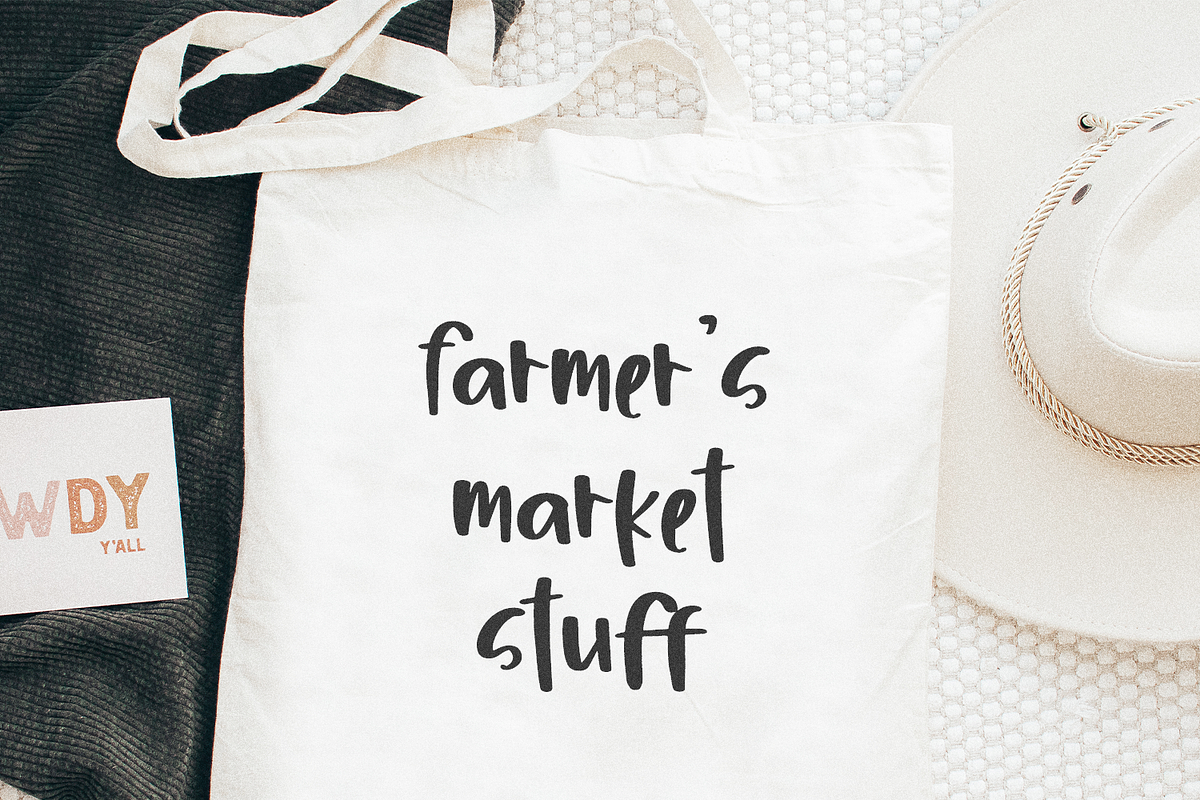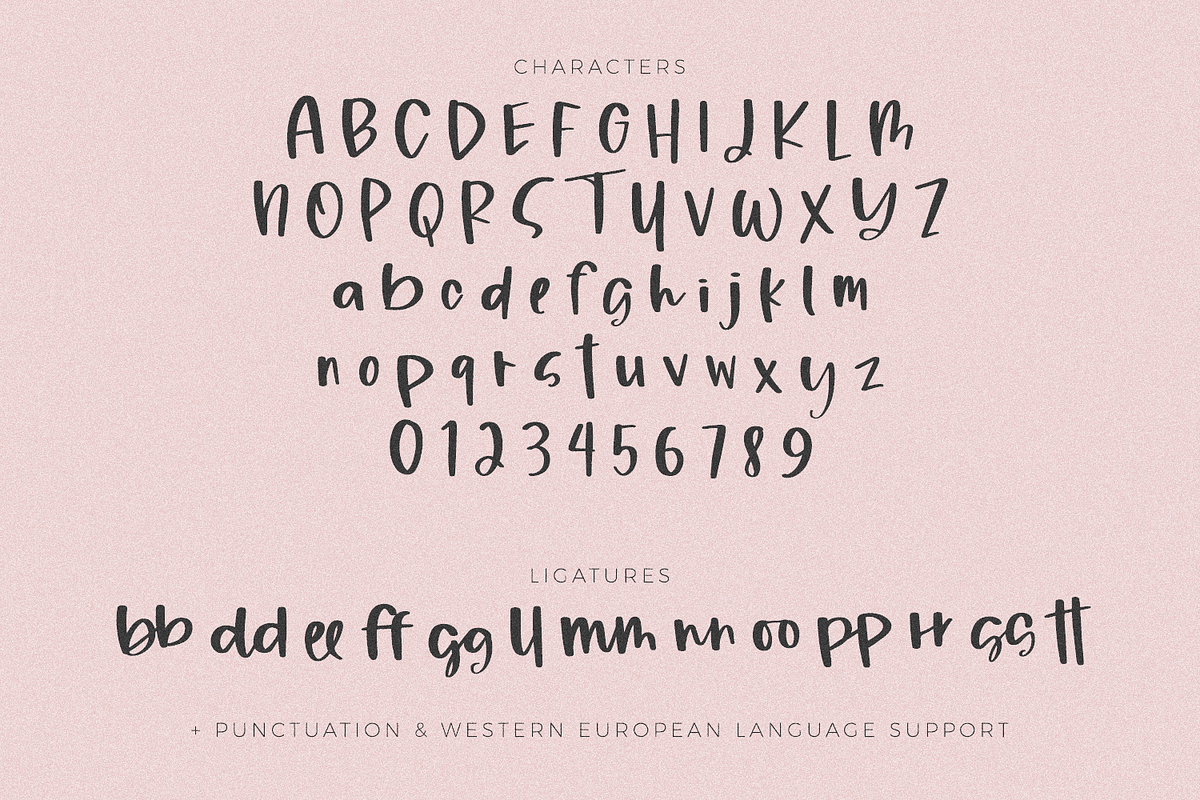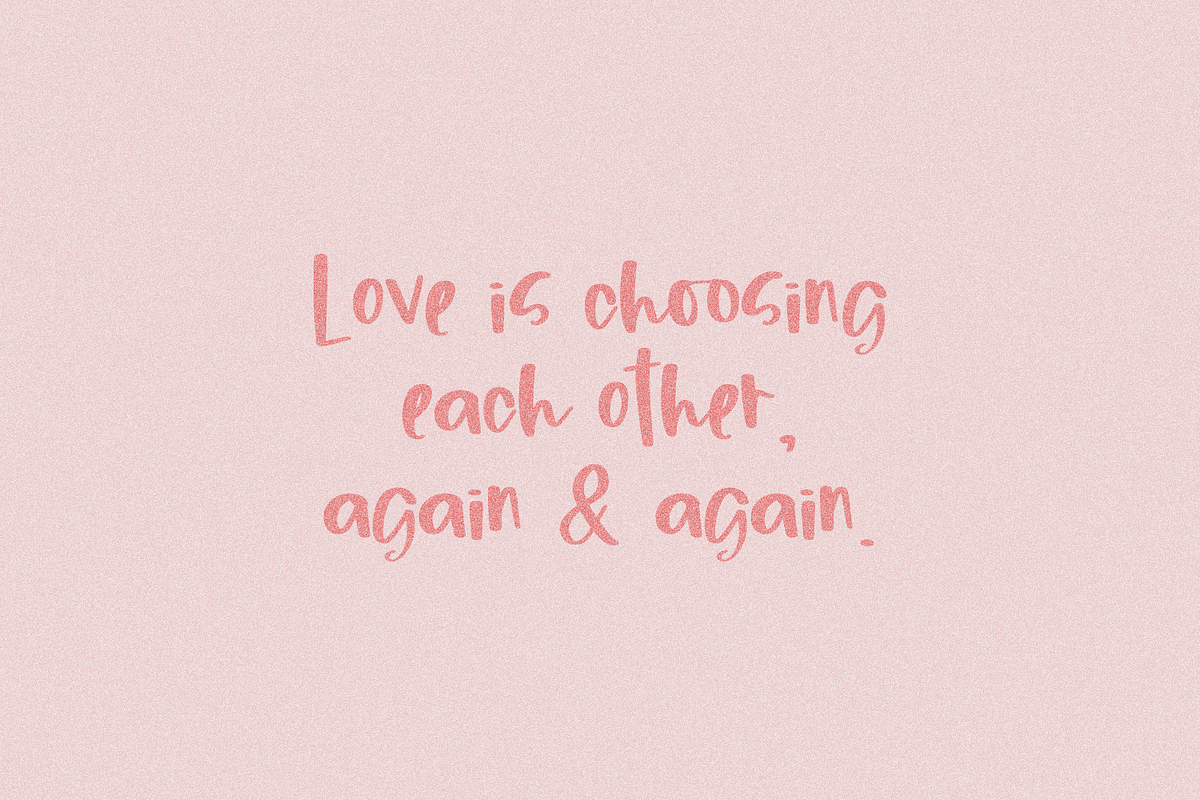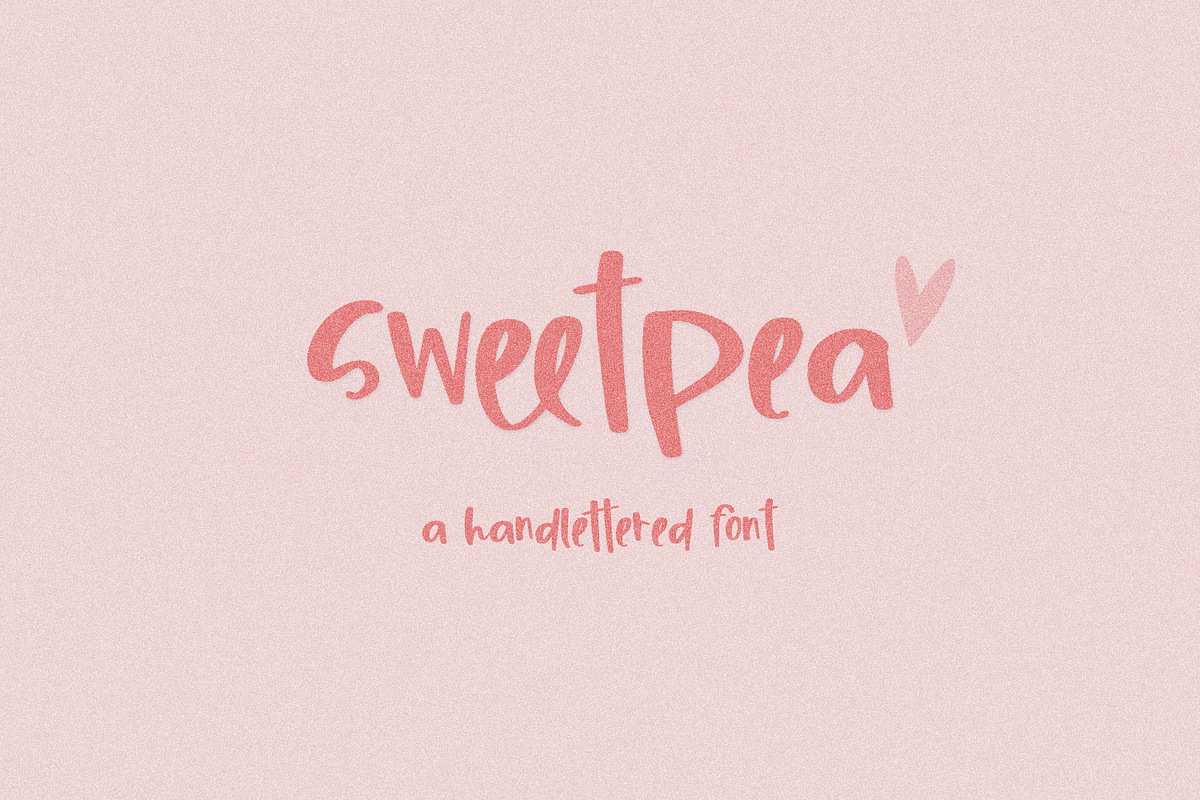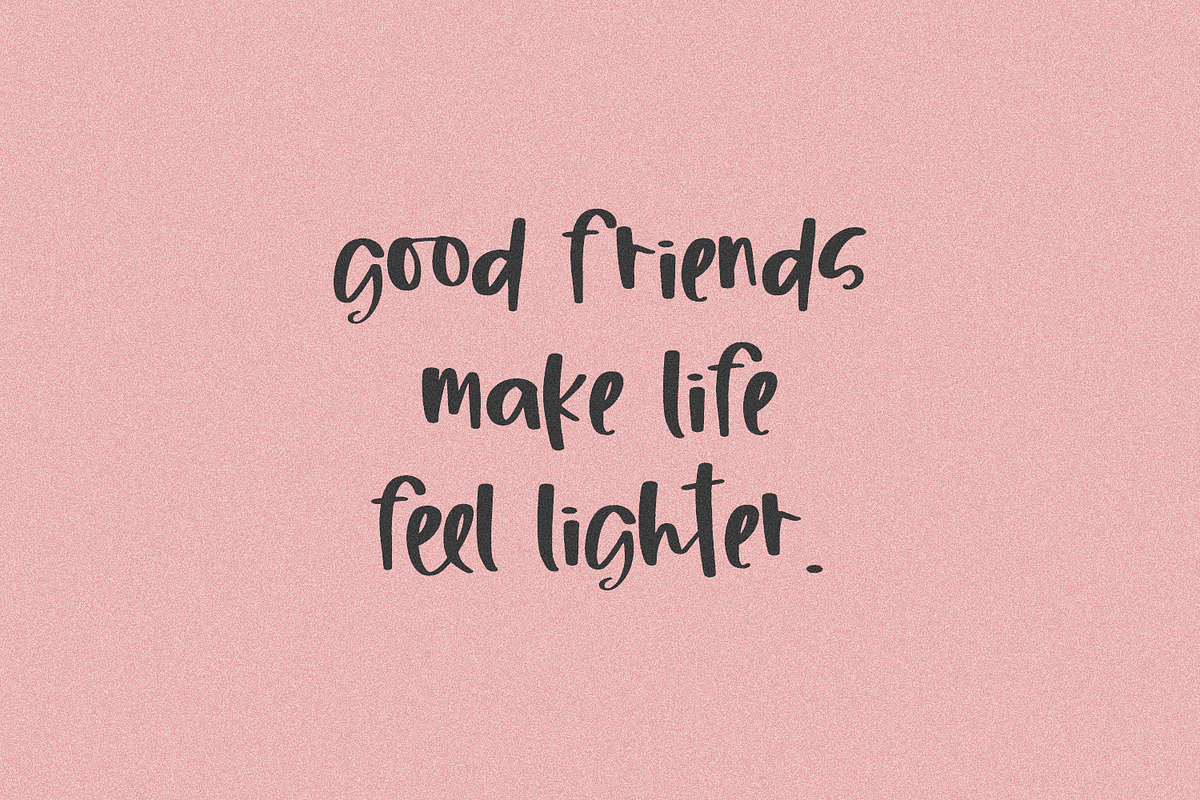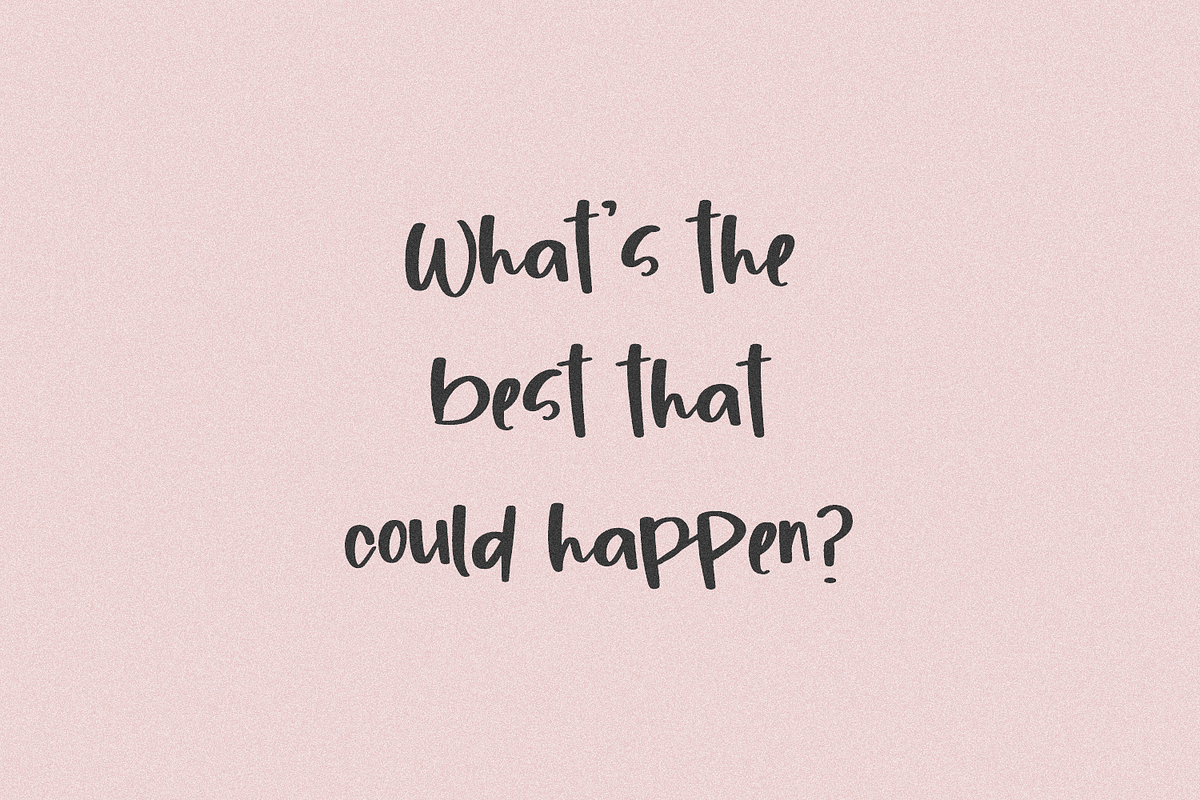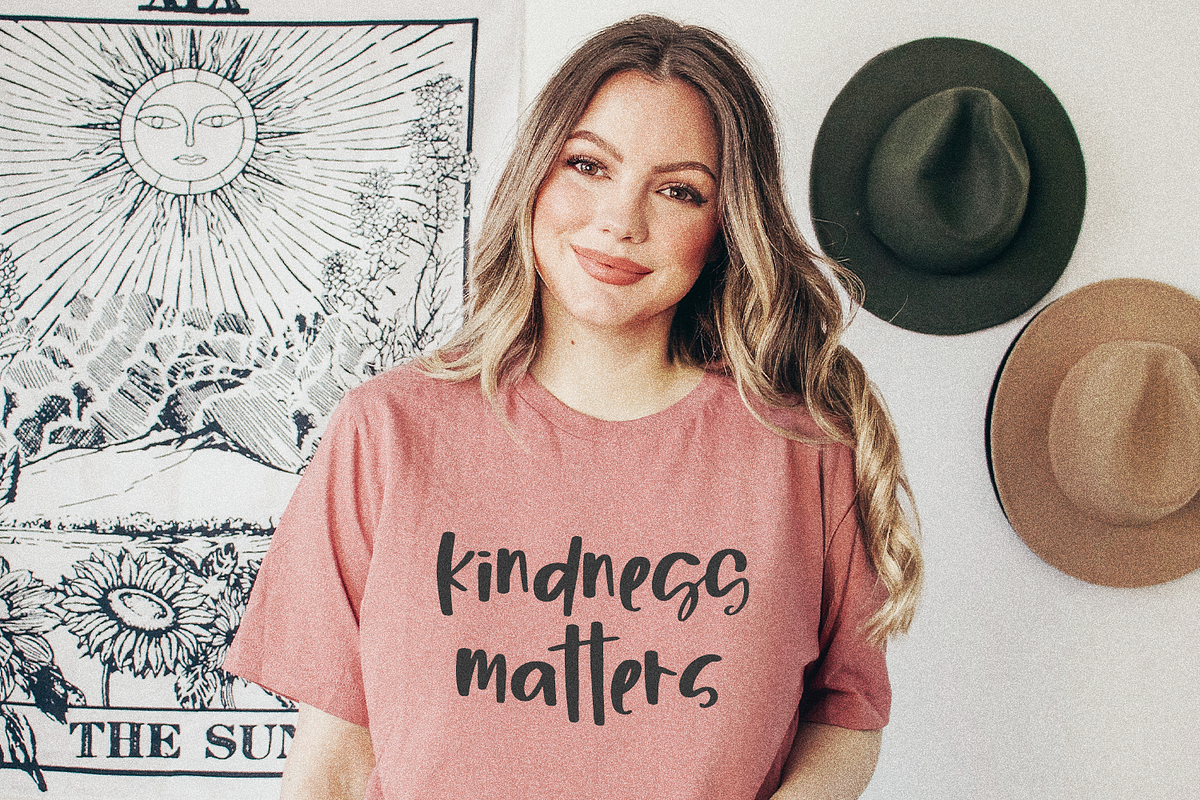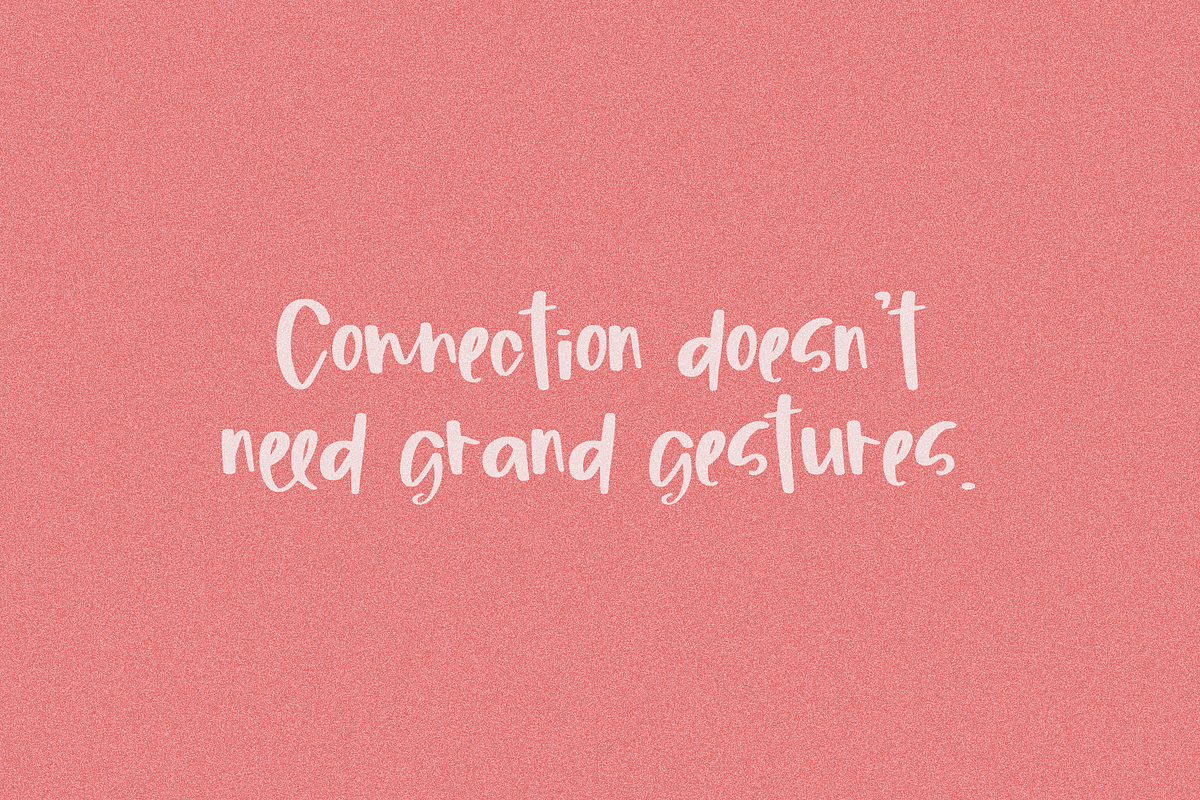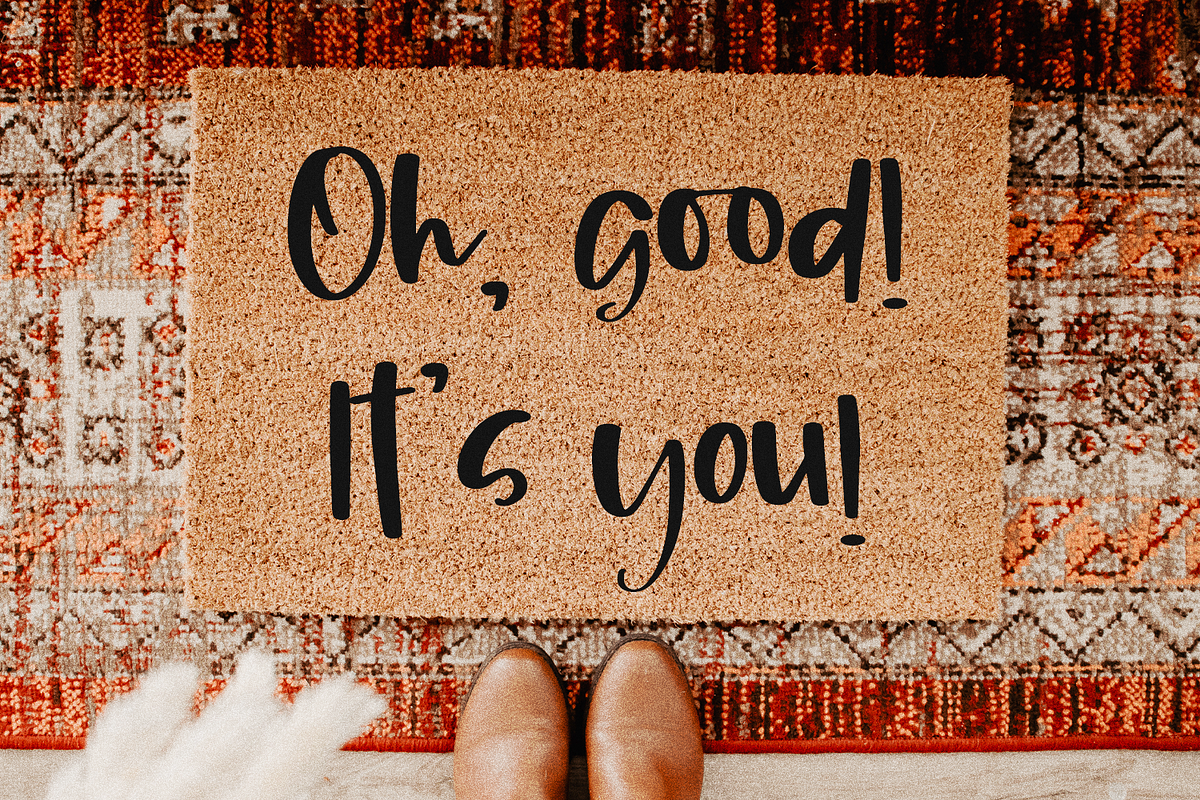
Sweetpea Handwriting Font
Sweetpea is a casual, chunky sans font with some ligatures. This font has clean lines with a handwritten feel, which makes it perfect for logos & branding, greeting cards, painted banners, digital planners, note-taking apps, Canva, Cricut projects, Silhouette projects, designing SVG files, laser cutting projects, & more.
Sweetpea includes:
- full upper + lowercase characters
- numbers + punctuation
- 13 ligatures - bb, dd, ee, ff, gg, ll, mm, nn, oo, pp, rr, ss, tt
- Western European language support - English, French, Spanish, Portuguese (Brazil), Portuguese (Portugal), Italian, German (Germany), German (Austria), Dutch, Danish, Swedish, Norwegian (Bokmål and Nynorsk), Finnish, Icelandic, Irish, Welsh